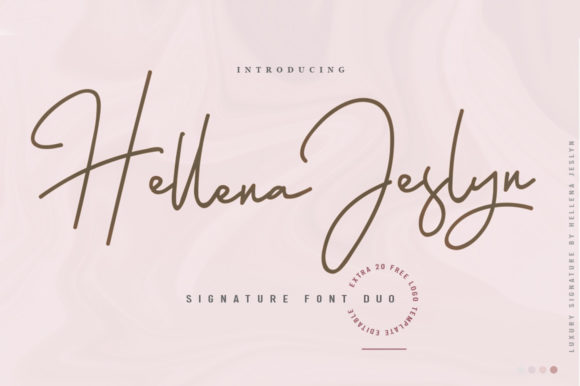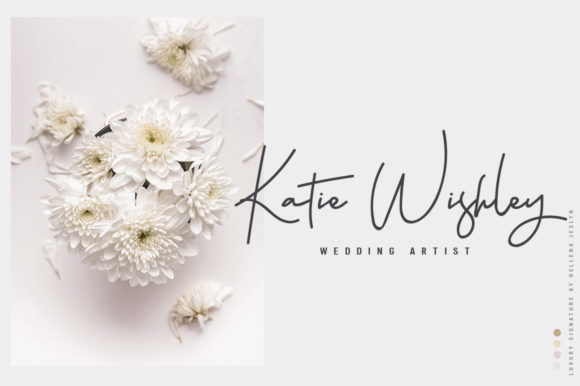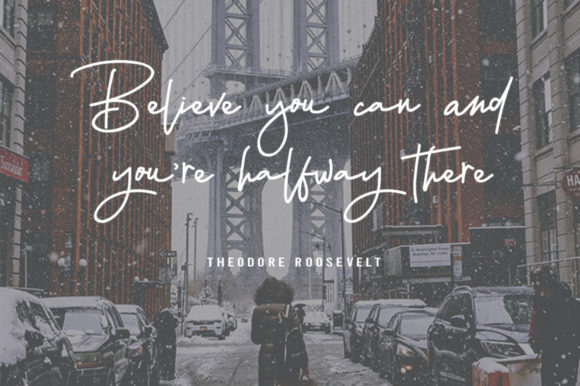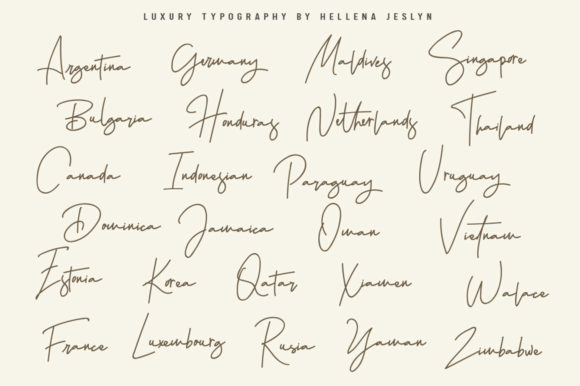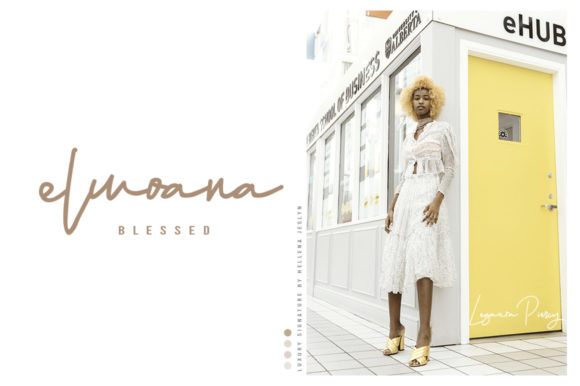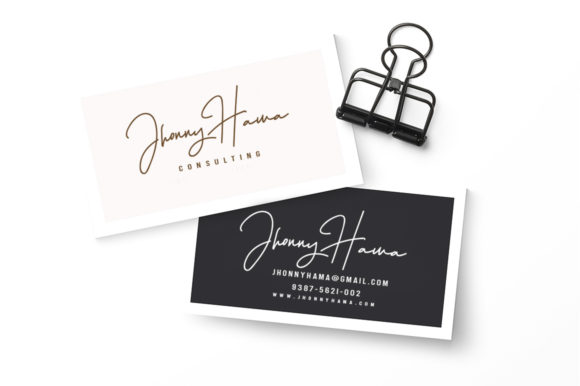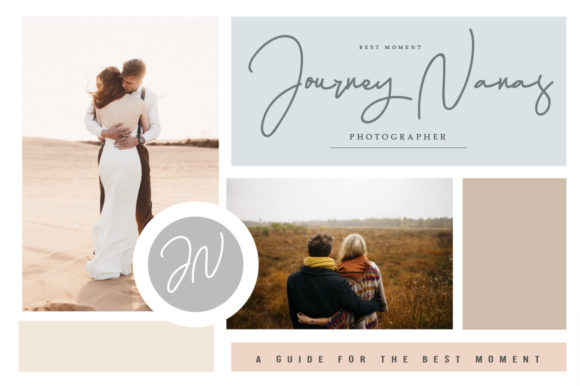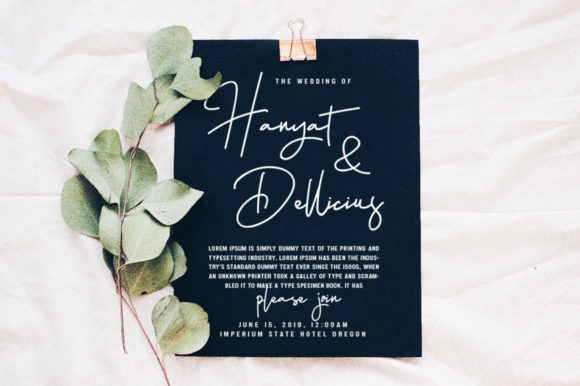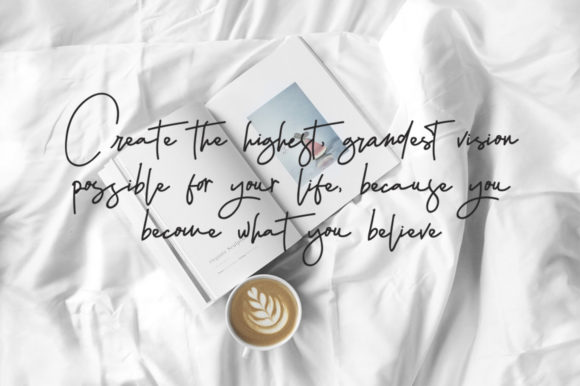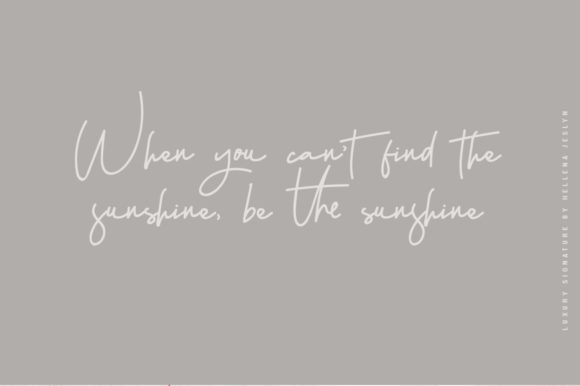
Hellena Jeslyn Duo Font
About Hellena Jeslyn Duo Font
The Hellena Jeslyn is an amazing font duo. It includes a classy, fun signature script font and a stylish sans serif font which can be combined perfectly, giving you the opportunity to create multiple unique designs in an instant.